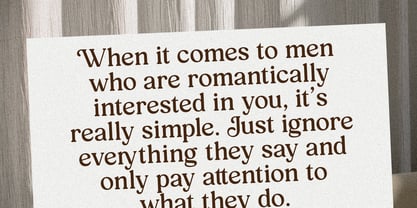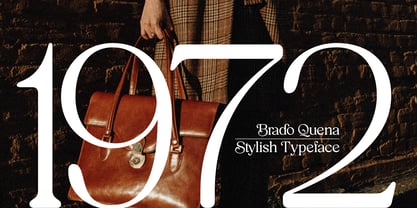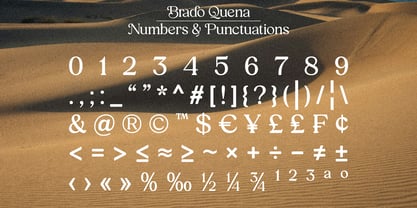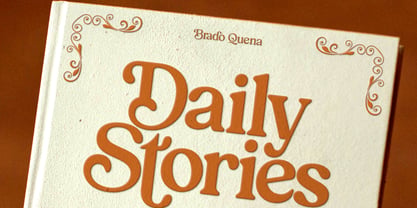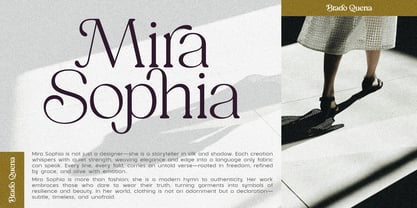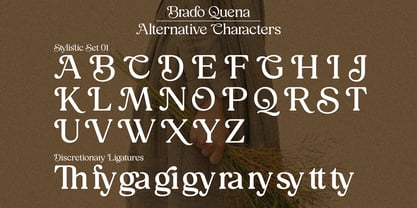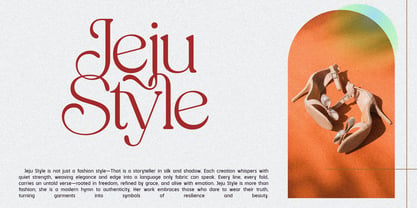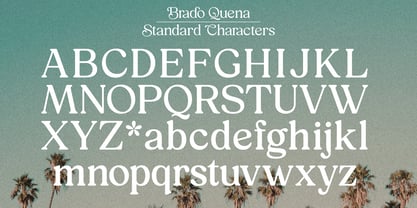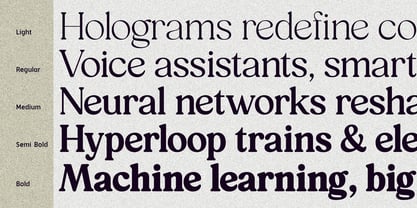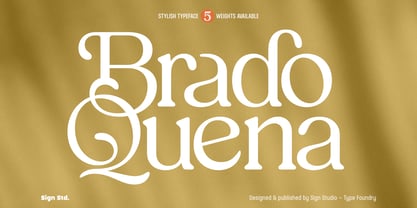
Brado Quena
by Sign Studio
The Brado Quena Font Family was designed by Sugi Yanto and published by Sign Studio. Brado Quena contains 5 styles and family package options. More about this family
Brado Quena is a display typeface that blends classic elegance with contemporary refinement. It is crafted to express timeless beauty and a refined, sophisticated character. Designed with five carefully balanced weights—from Light to Bold—Brado Quena offers strong versatility. It performs well across a wide range of applications, including editorial design, branding, logos, high-end packaging, and digital content. Its clean structure and stylized character shapes create a harmonious visual rhythm, ensuring clarity while maintaining a distinctive personality. Brado Quena includes essential OpenType features to support expressive typography, such as: 1. Standard Ligatures 2. Discretionary Ligatures 3. Stylistic Set 01 (ss01) for uppercase 4. Stylistic Alternate 1 (Alt1) for lowercase These features expand creative flexibility and add nuanced character to typographic compositions. Supporting a broad range of Latin-based languages, Brado Quena is well-suited for international use. Whether applied to print or digital media, it brings a sense of class and sophistication to both personal and commercial projects.
Designers: Sugi Yanto
Foundry: Sign Studio